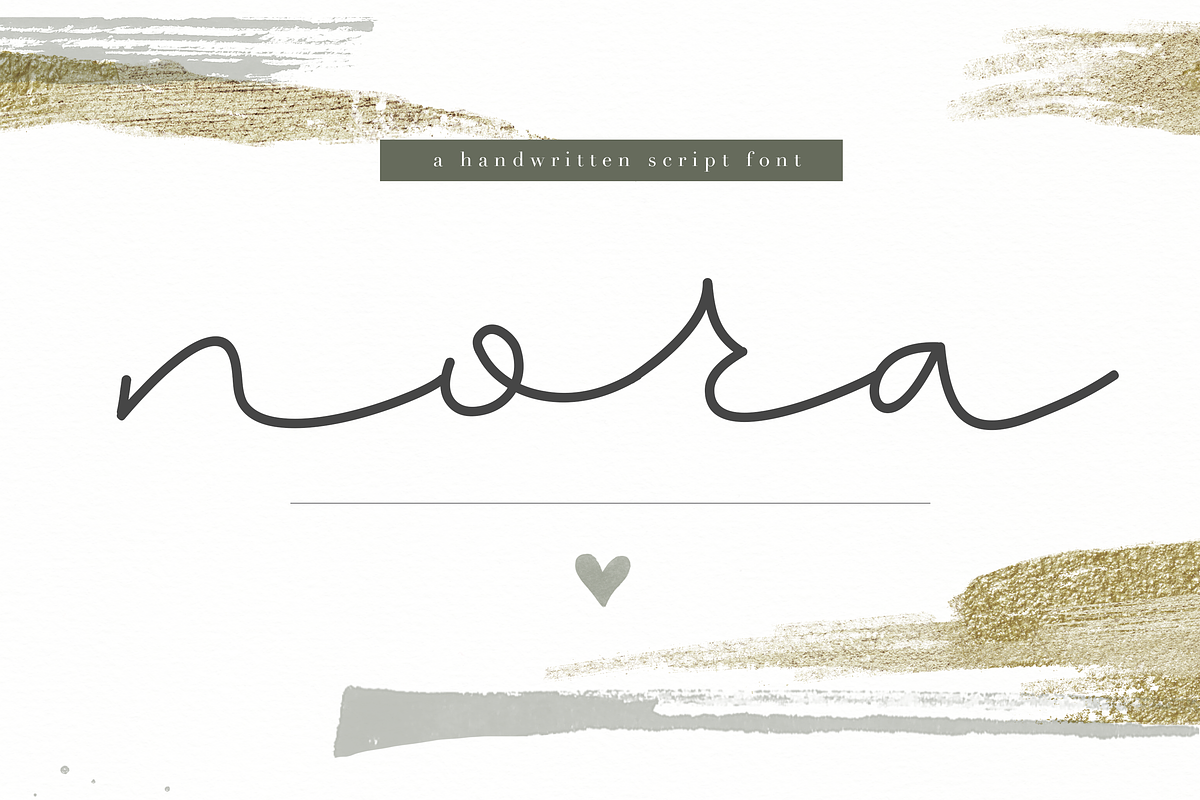
Nora - Handwritten Script Font Free Download is an elegant and flowing handwritten typeface designed to add a personal and sophisticated touch to your projects. With its smooth, cursive strokes and beautiful, organic character forms, Nora is perfect for wedding invitations, branding, greeting cards, social media graphics, and more.
The fluid lines and refined design make it ideal for both formal and creative applications, adding warmth and charm to your typography. Whether you're creating a logo, quote graphic, or event invitation, Nora delivers elegance with ease.